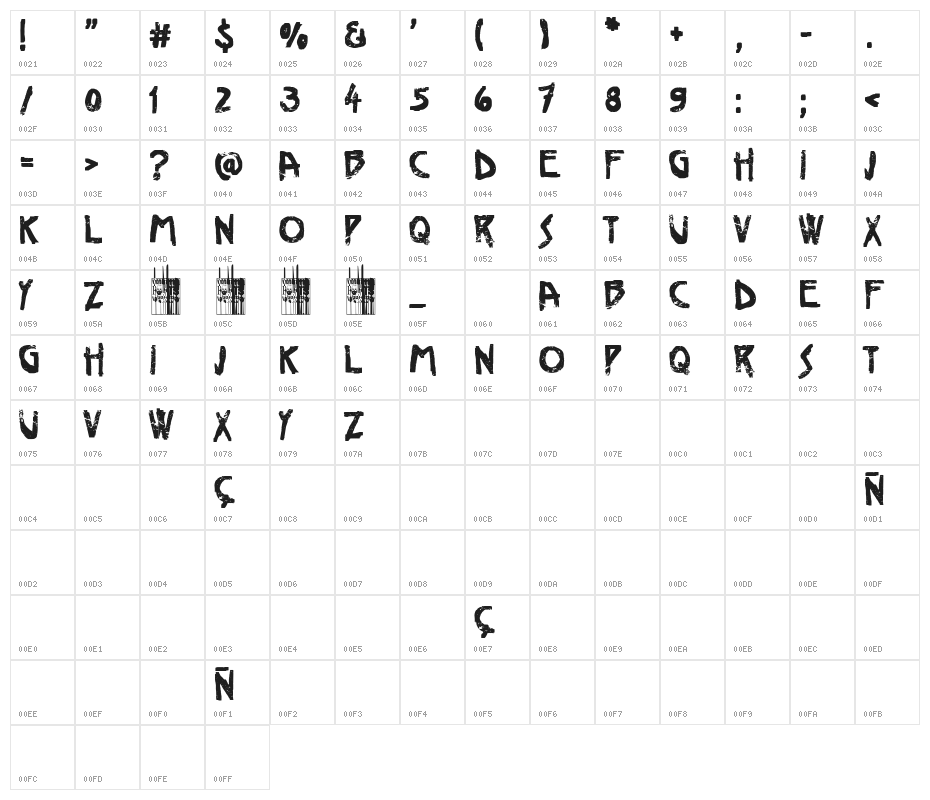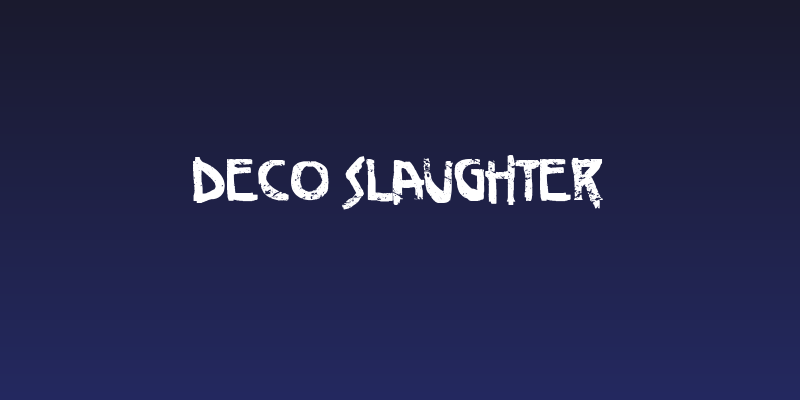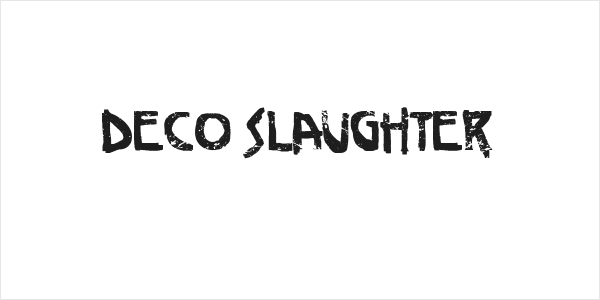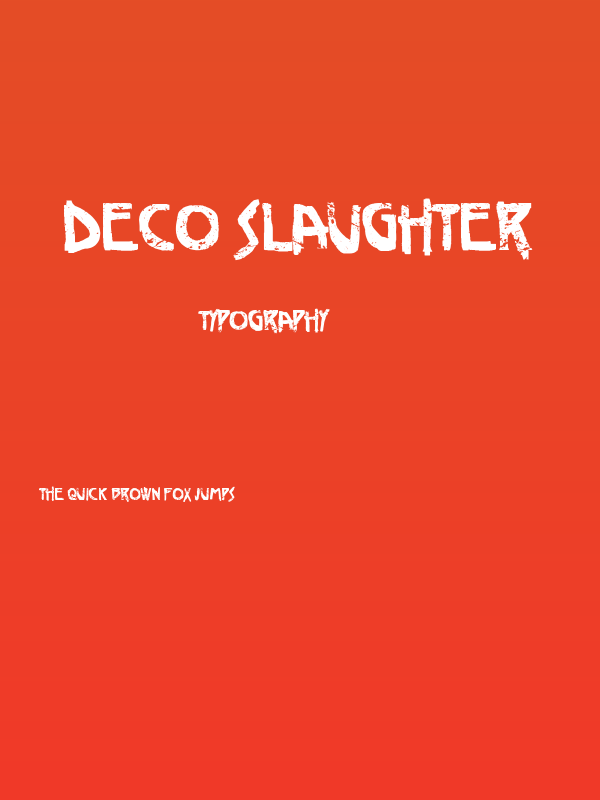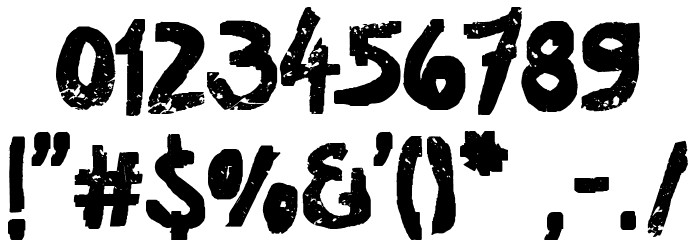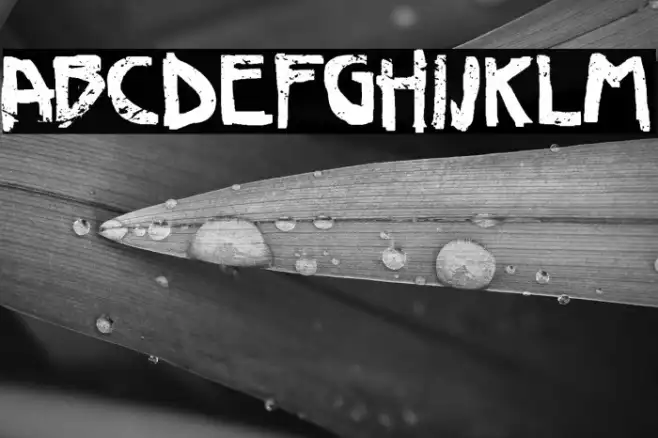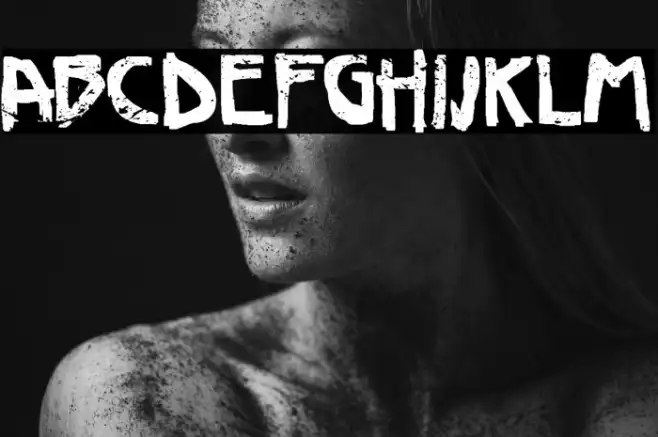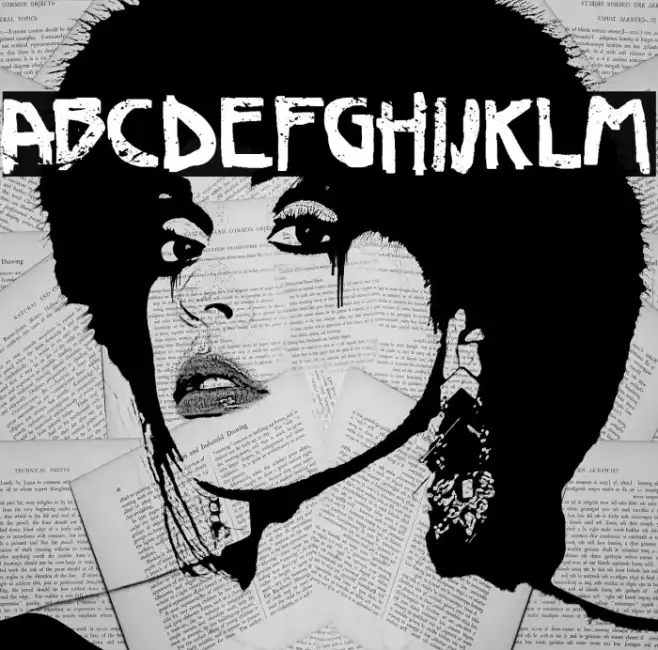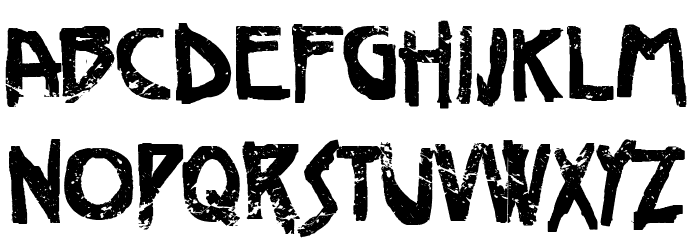
Deco Slaughter Font
Deco Slaughter Description
This font exhibits a rugged and distressed appearance, characterized by its rough edges and uneven texture. The letters are bold and impactful, with a hand-painted look that suggests a sense of urgency and raw energy. The uppercase and lowercase letters maintain a consistent style, while the numerals and special characters complement the overall aesthetic. The font's unique style makes it stand out, providing a gritty and dynamic feel that is both eye-catching and memorable.
| Proposed Projects | Ideal for projects requiring a bold statement, such as posters, album covers, or branding for edgy or alternative products. |